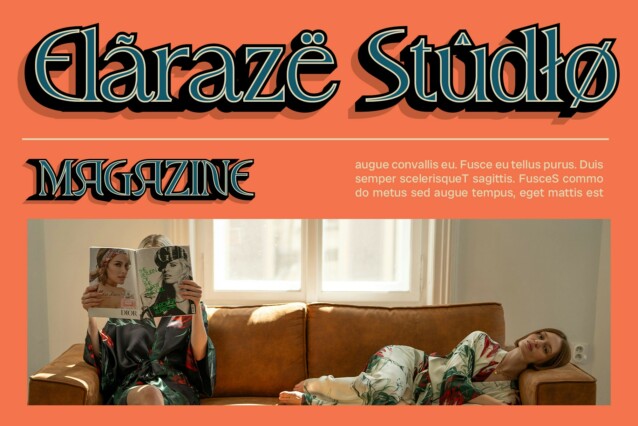
CS Roastery 3D Font
CS Roastery 3D Font is a modern serif font characterized by its sleek design and smooth lines, conveying a sense of elegance. Its contemporary serif elements offer a refined appearance that is perfect for sophisticated design projects.
Captivating 3D Effect
Enhancing its luxurious appeal, CS Roastery 3D features an integrated 3D effect that adds visual depth and dimension. This effect brings the font to life, making it suitable for innovative and high-end designs.